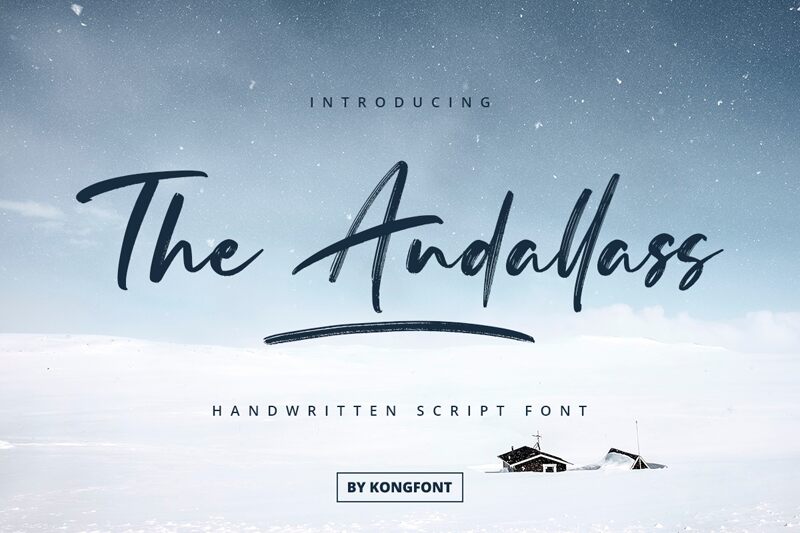
The Andallass
The Andallass font by Kong Font is the perfect choice for projects that require a personal touch. Its semi-light weight and handwritten style create an organic and authentic feel that's suitable for a range of applications. The Andallass font works well for branding, social media graphics, invitations, and more. Whether you're looking to add a touch of whimsy to your project or want to create something heartfelt and genuine, The Andallass font is sure to capture the essence of your message. Try it out today and see how it can elevate your designs!